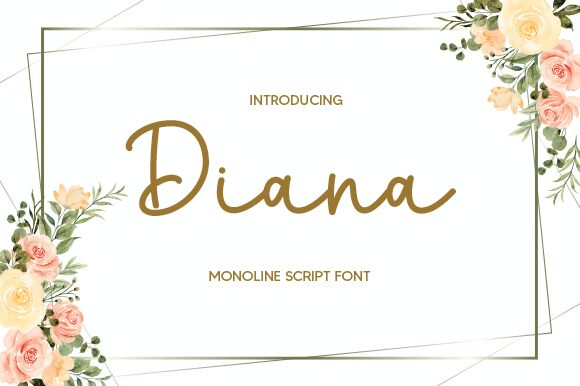
Diana
Diana font by Risma Ramawi of Nirmala Creative is a free handwritten font that feels like a confident name signed in fresh black ink. The strokes swing from a bold, looping opener into lighter, quick curves, giving your words an easy rhythm without looking messy. It’s lively and personal, with that smooth, brush-pen glide that reads clearly even when you keep it simple.
Using Diana font works beautifully for logos, boutique branding, packaging stickers, social posts, wedding invites, quote graphics, and small business cards where you want a friendly human touch. Pair this free font with a clean sans like Montserrat or Inter to keep layouts crisp, and let Diana handle the headlines—give it a little extra size and breathing room so the loops can shine.